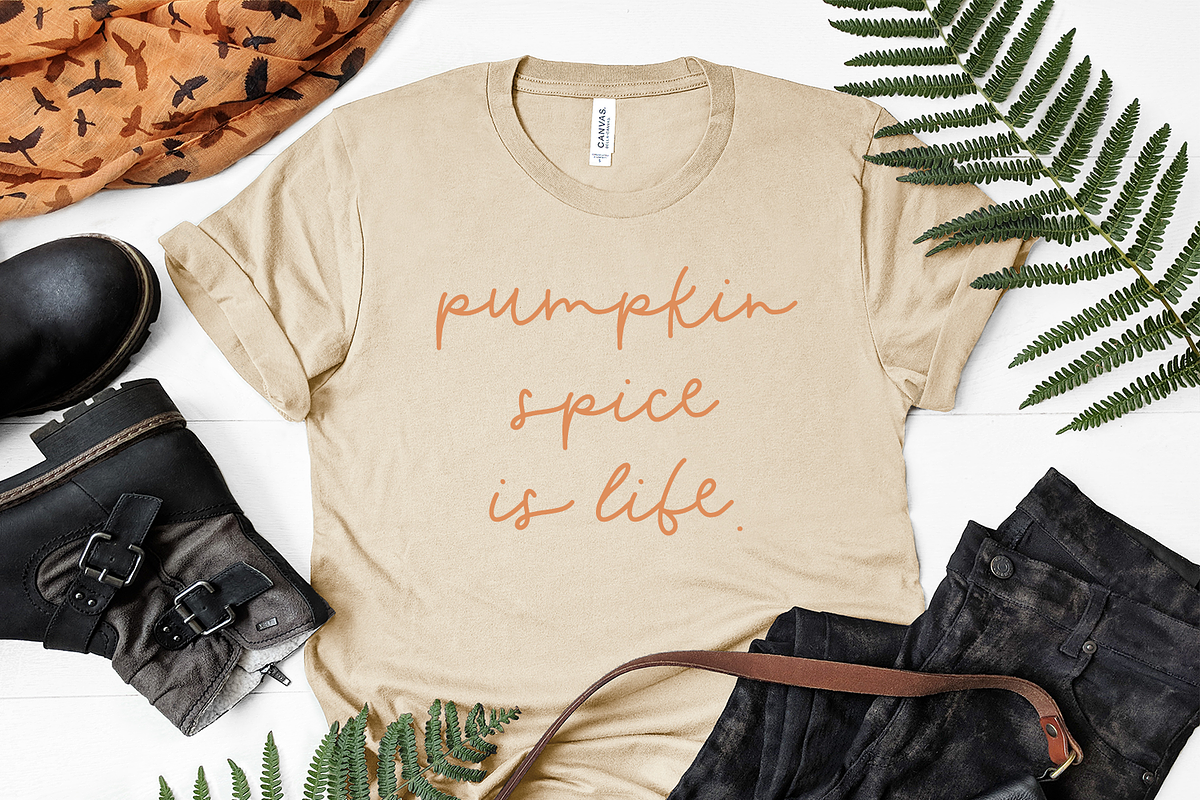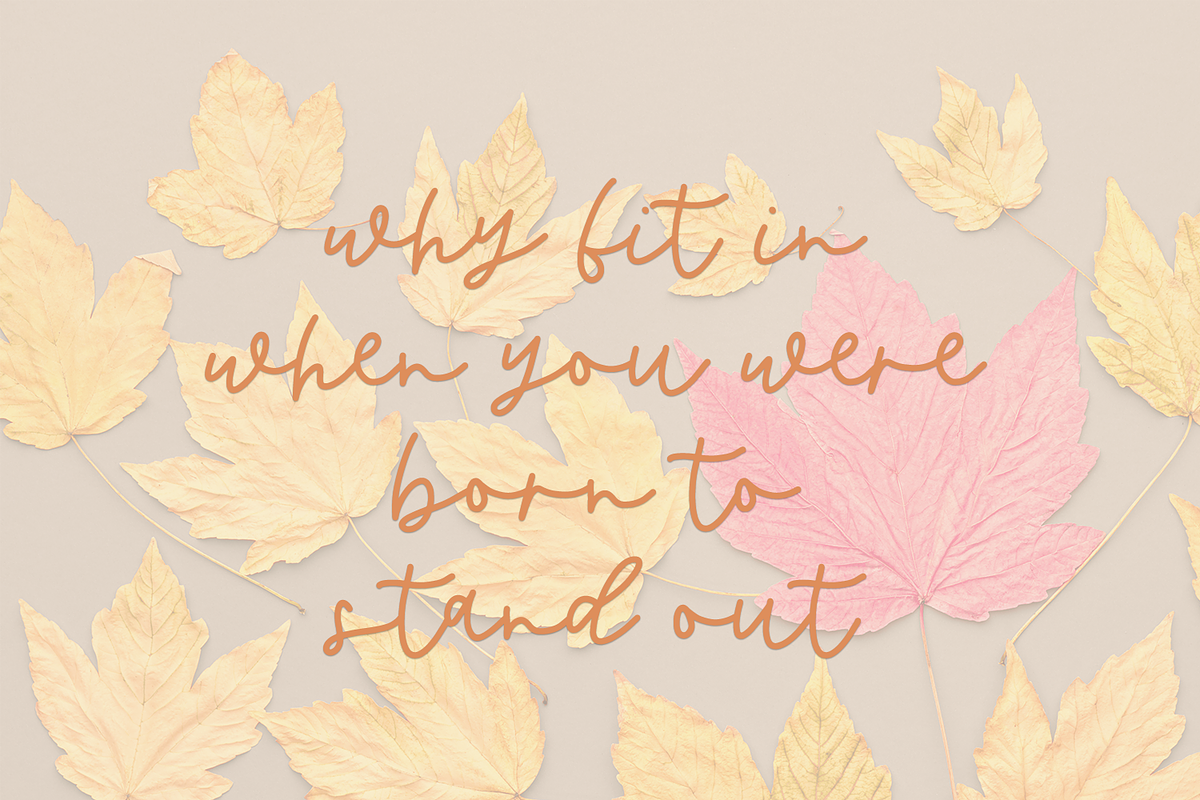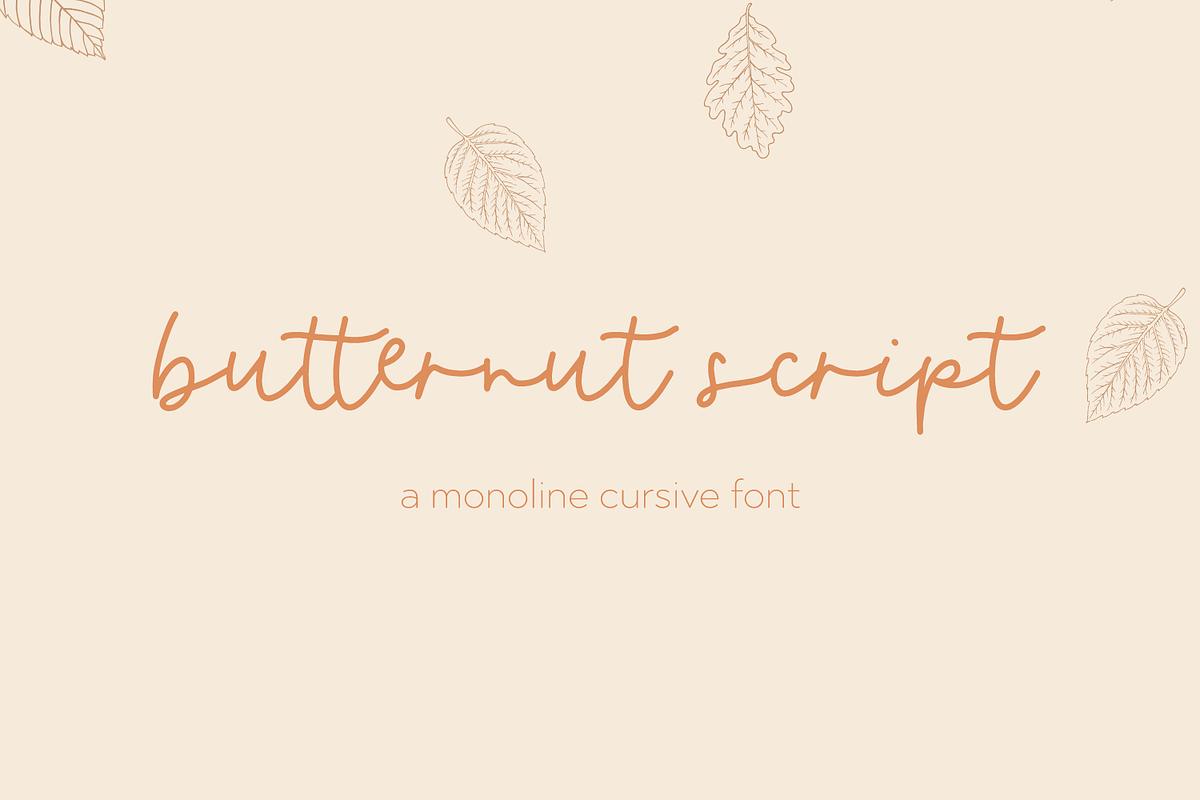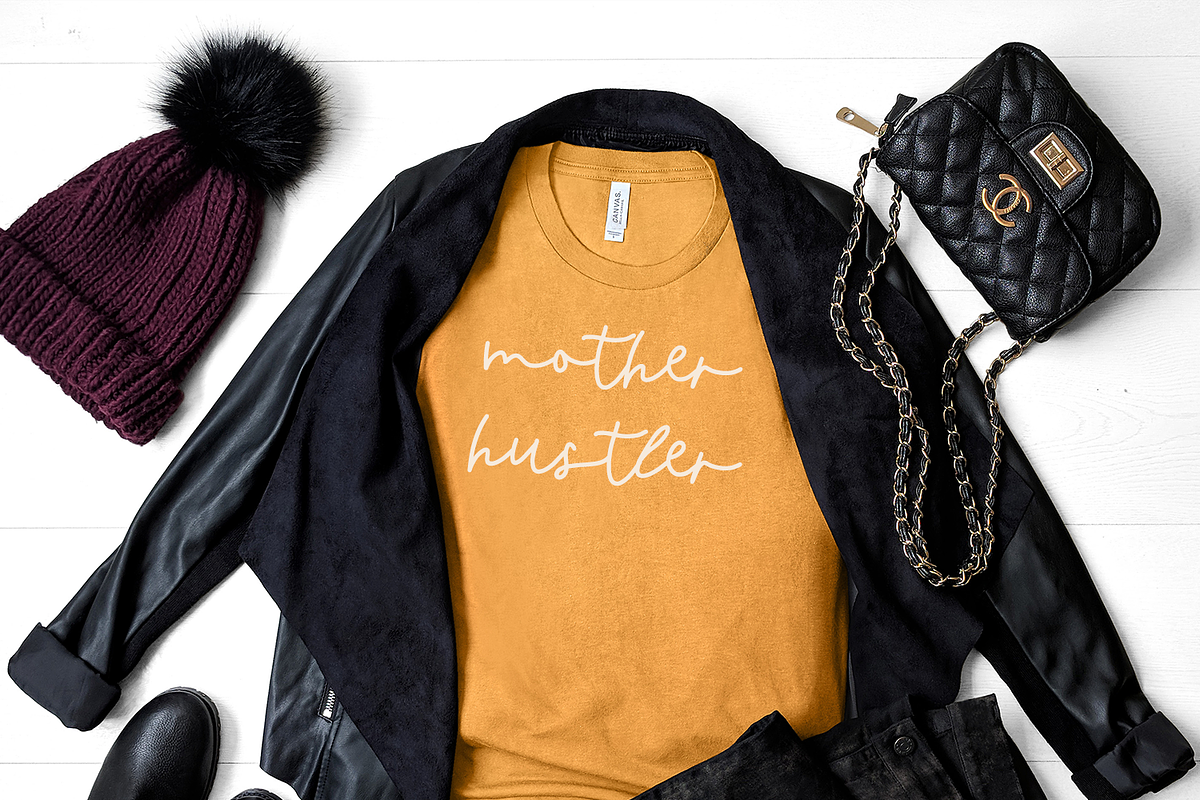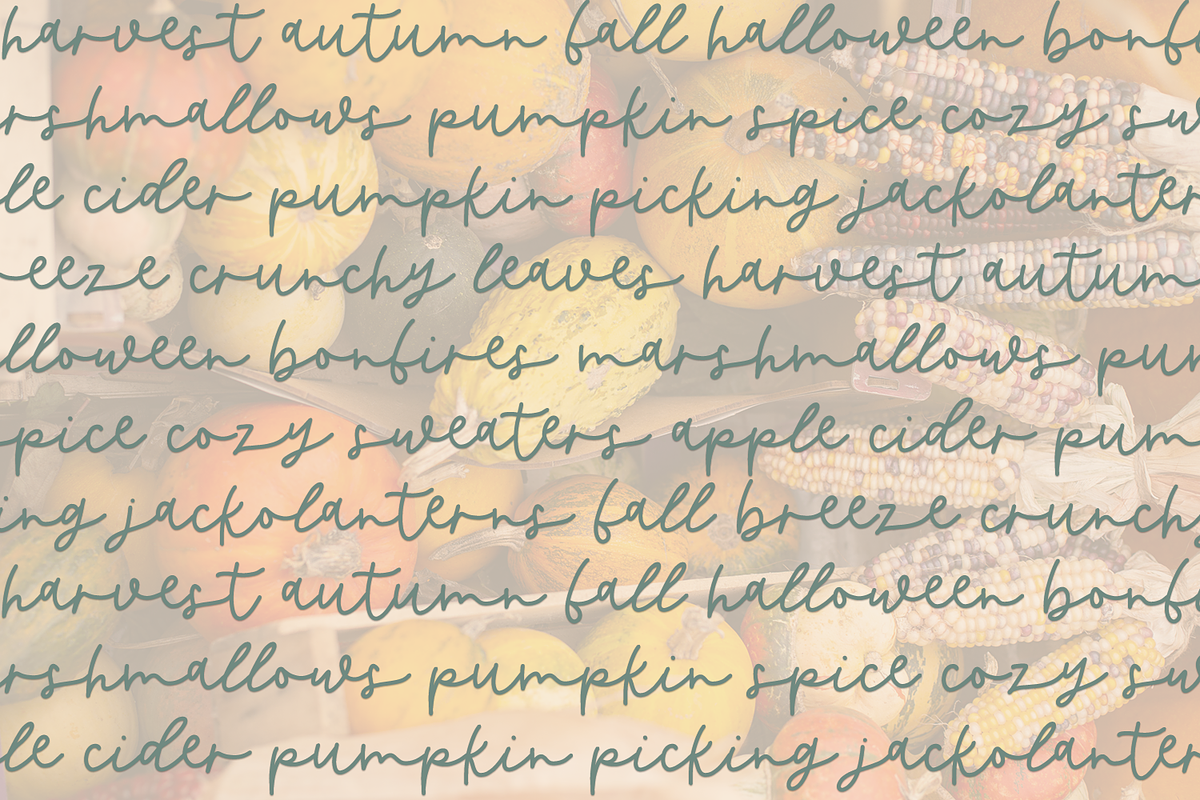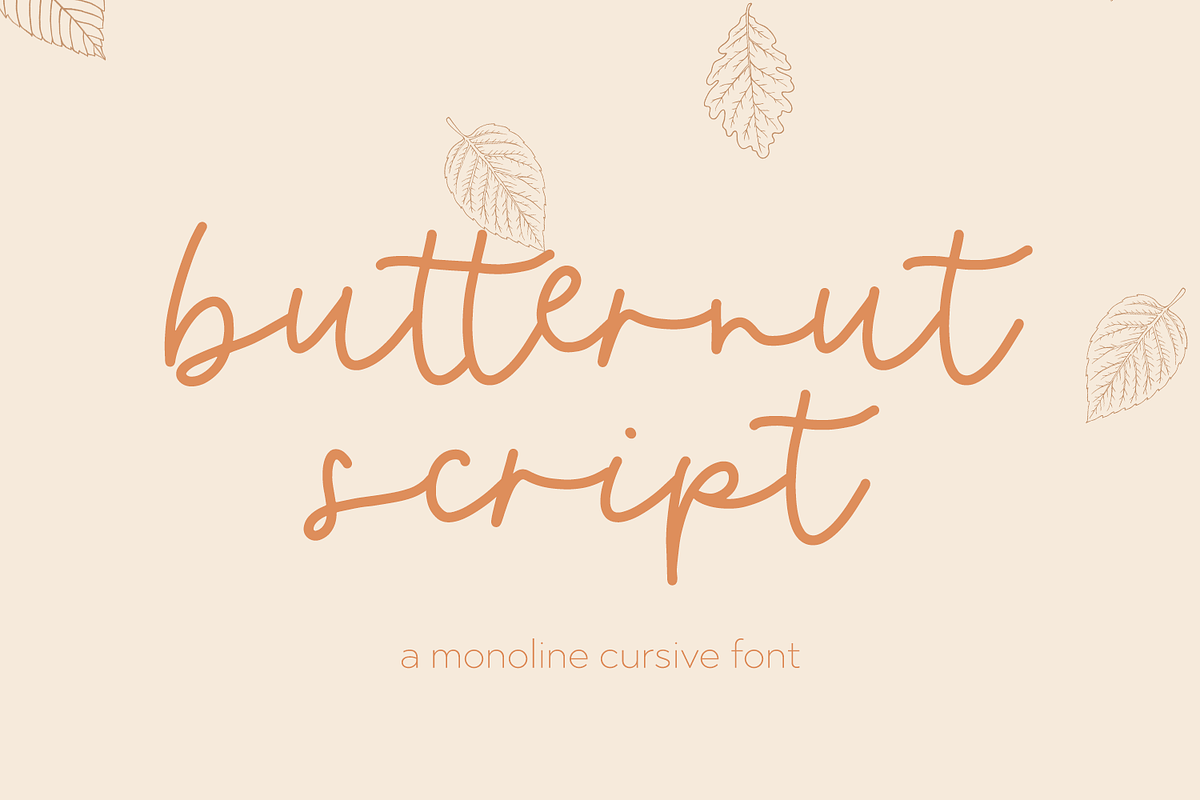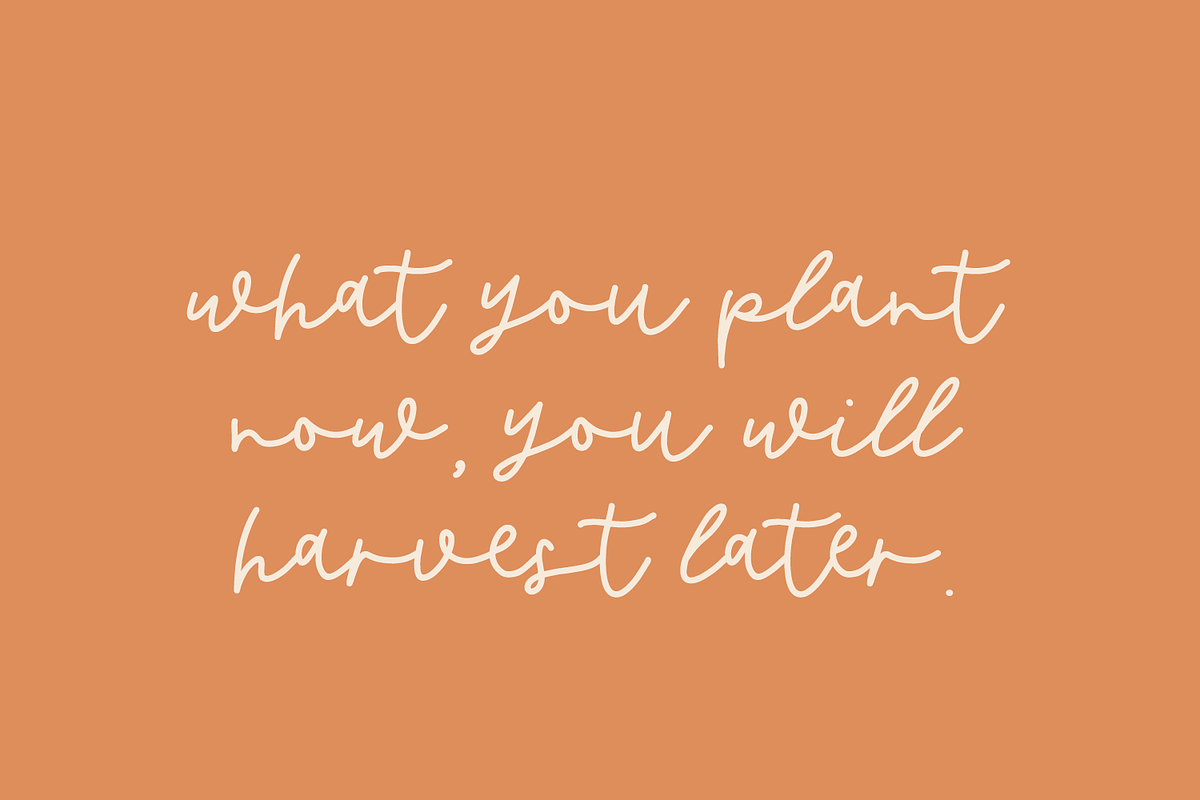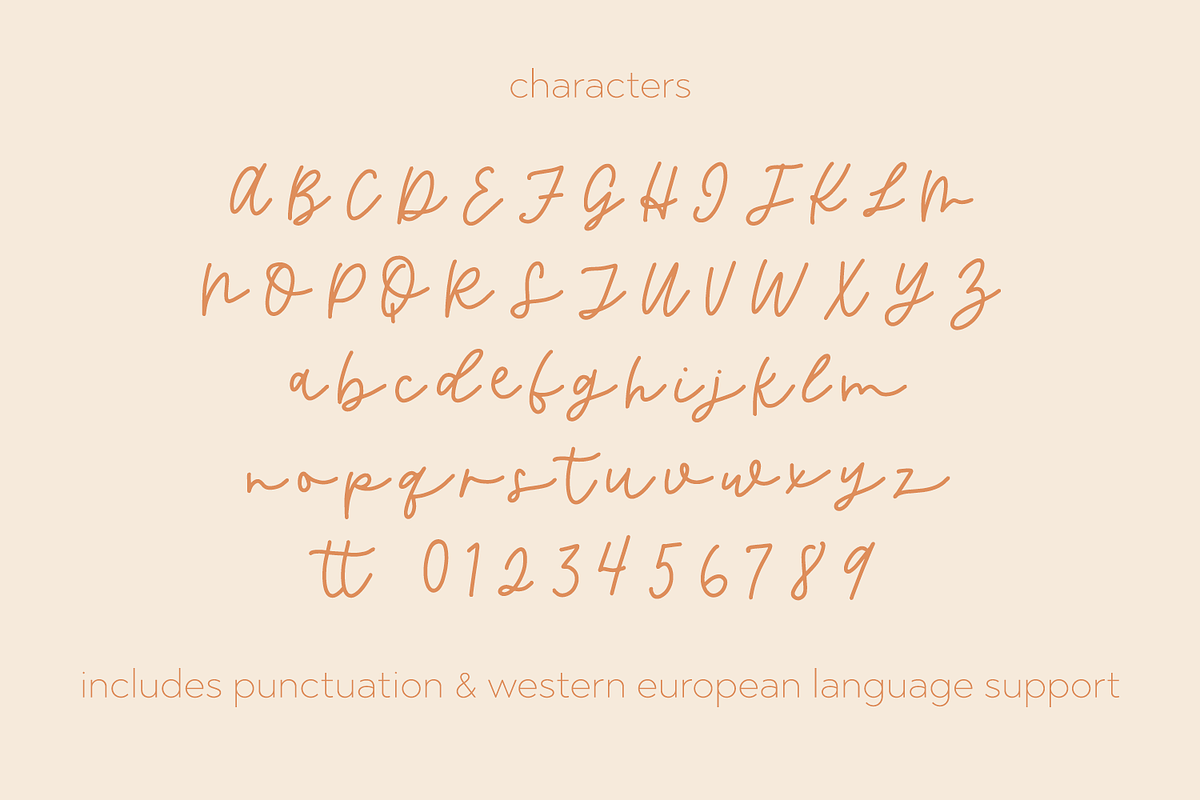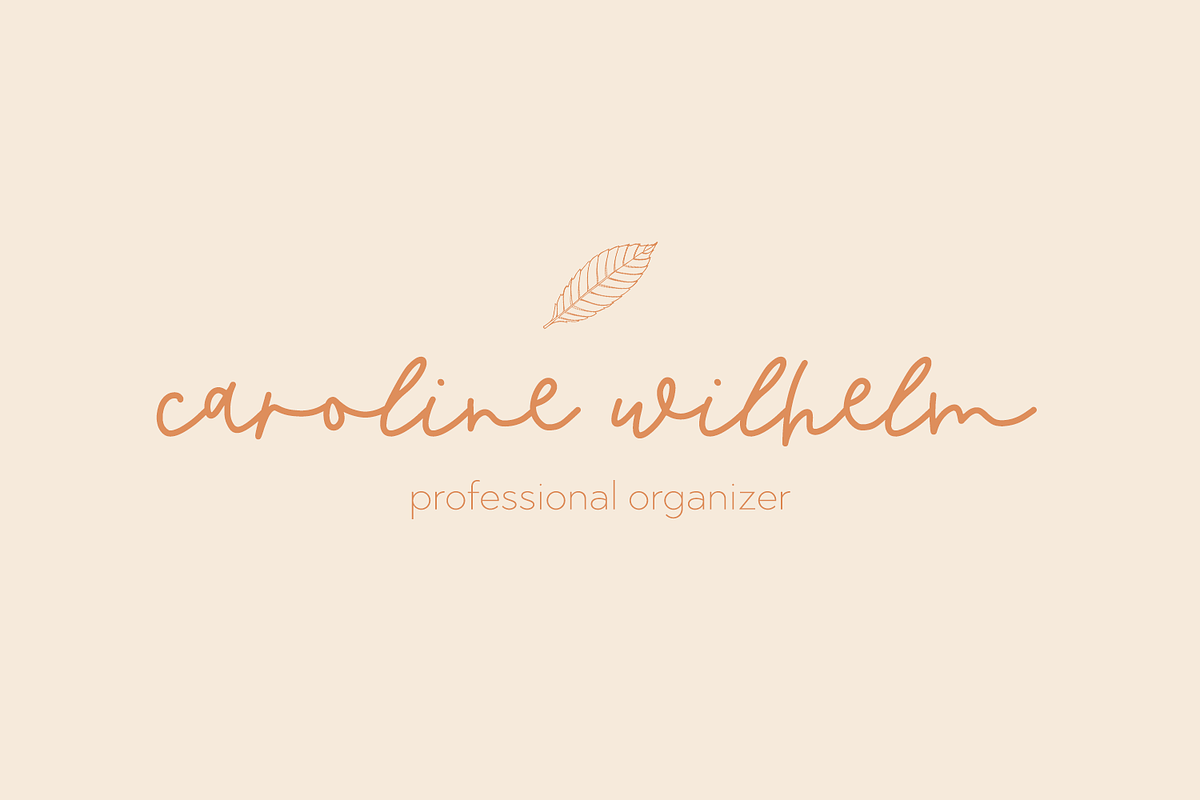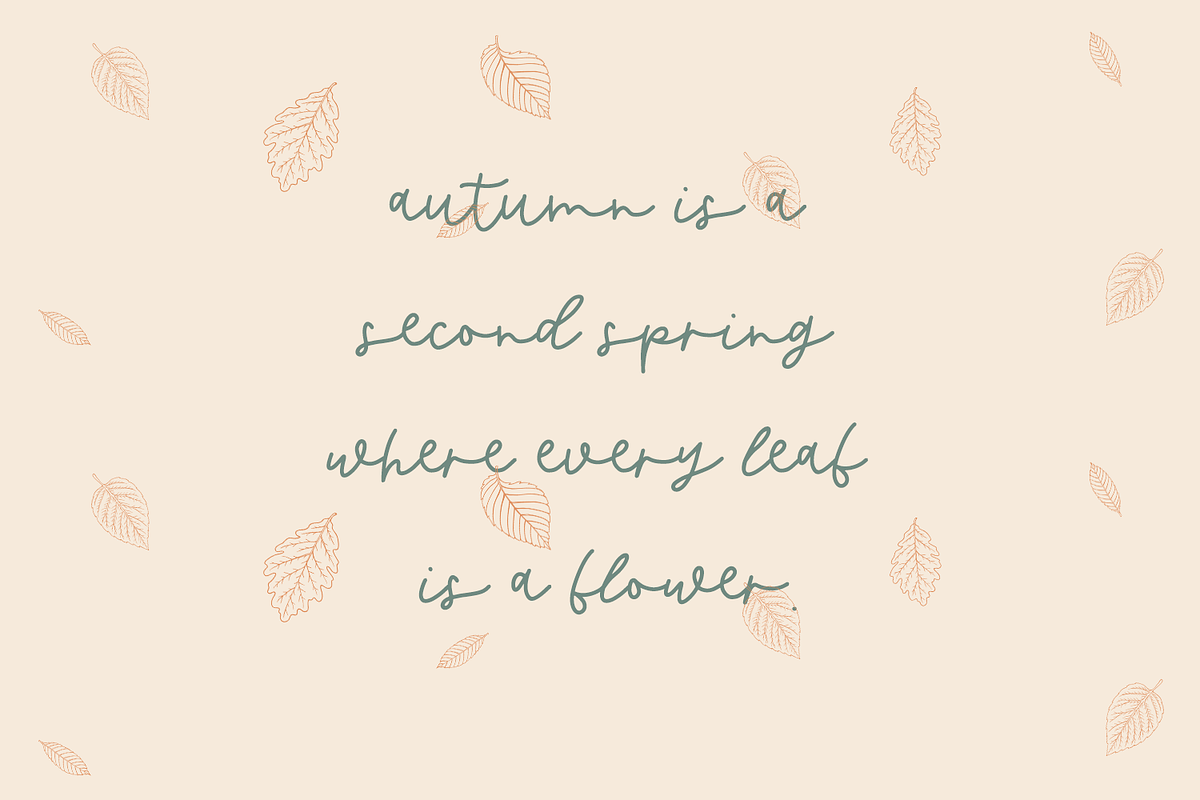
Butternut Script
Meet Butternut, a monoline cursive font with the cutest amount of bounce!
Butternut is best for:
- logos + branding
- website design + website accents - think travel blogs, fashion blogs, & more
- clean print design, like magazines + flyers
- header elements that need handwritten touch
- quote graphics for social media
Butternut includes:
- full upper + lowercase characters
- numbers + punctuation
- Western European Language Support
- 1 ligature, tt